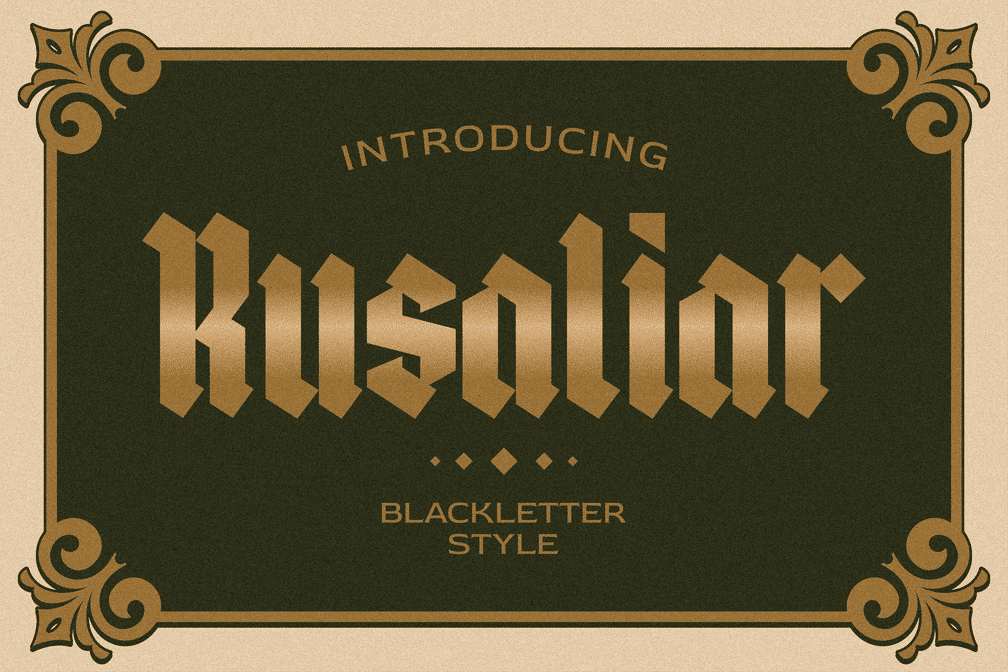
Rusaliar Blackletter
Rusaliar is a blackletter font with a minimalist and clean look, perfect for designs that require a gothic, vintage and old feel.